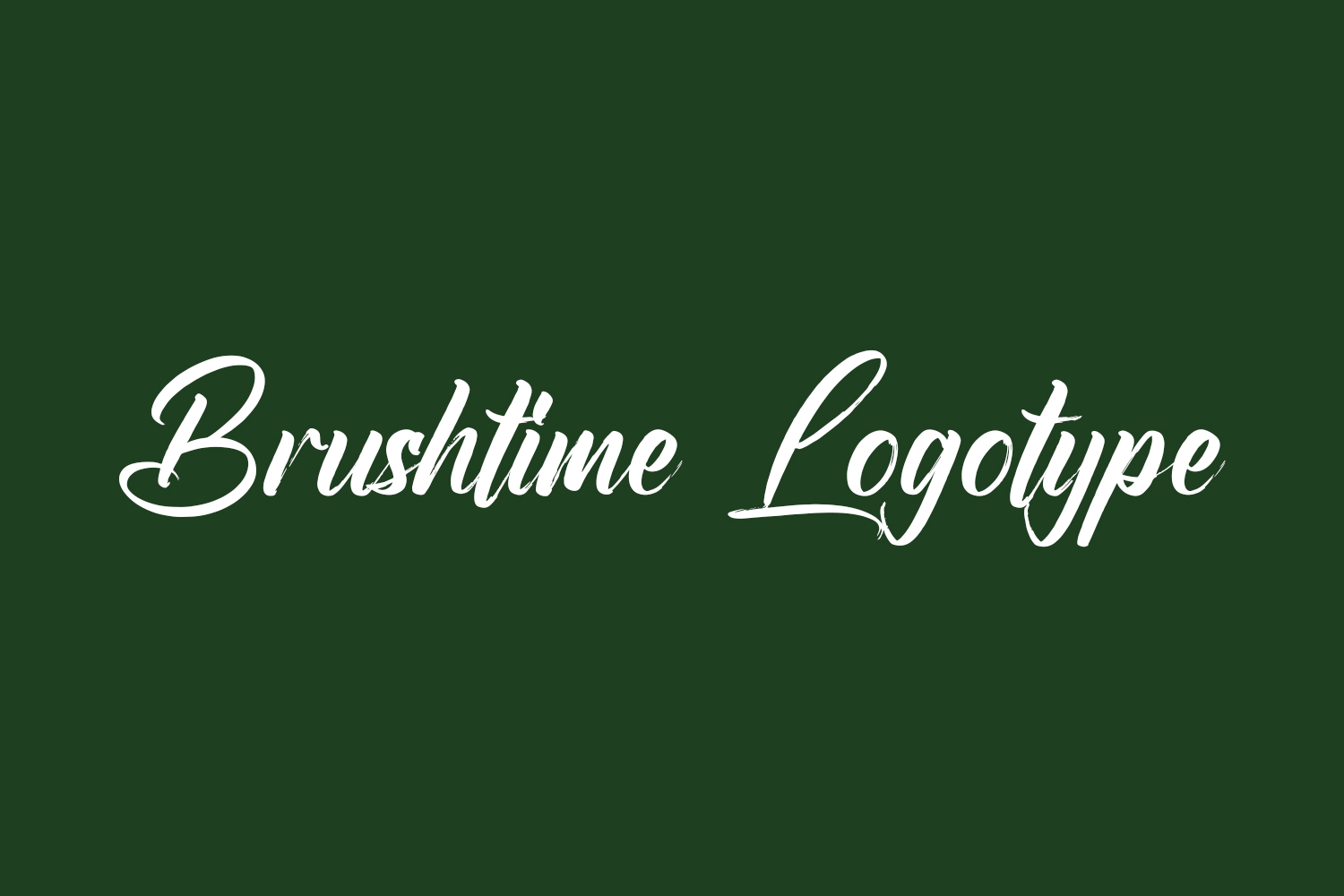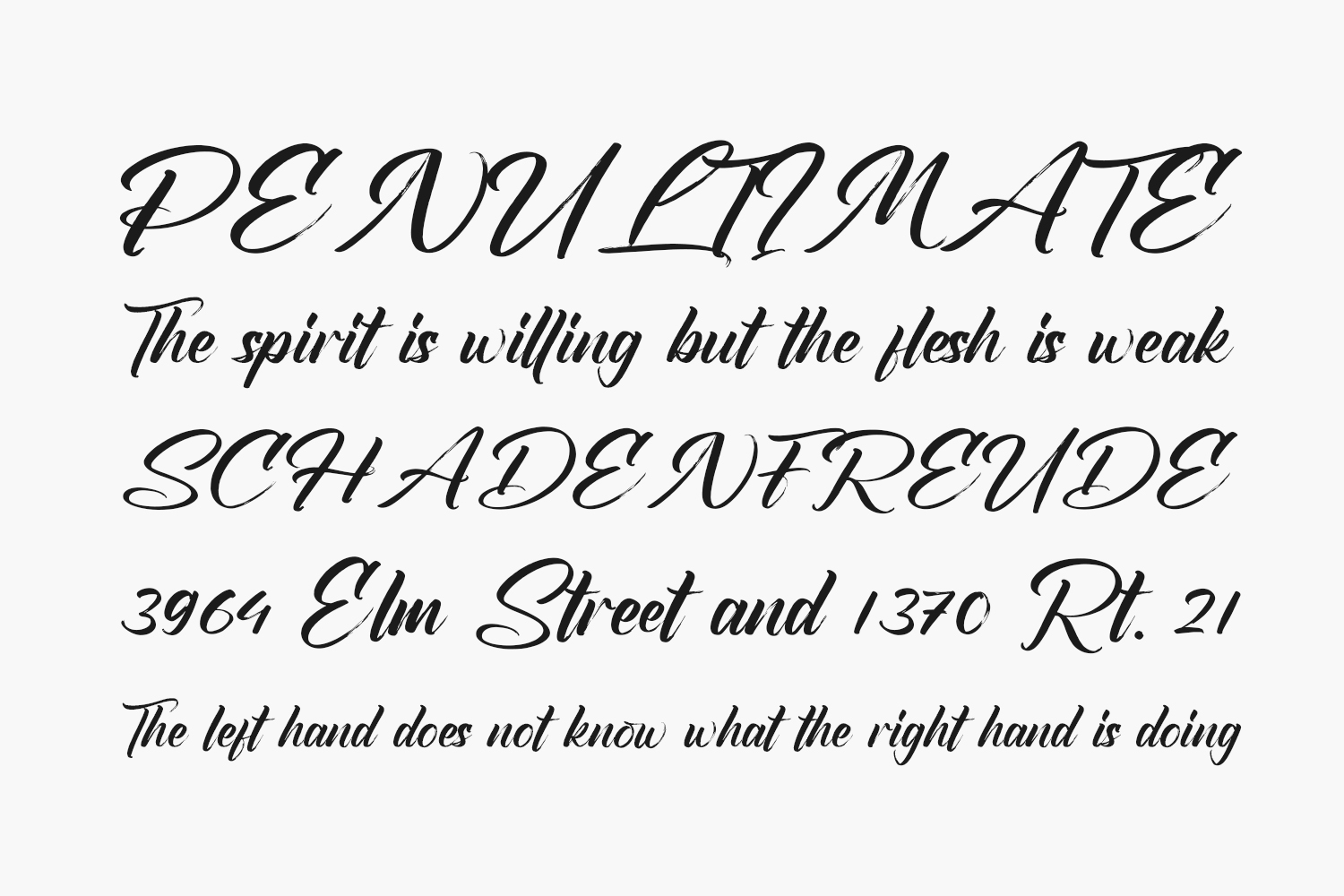
Brushtime Logotype Free Font boasts an elegant script font that exudes a contemporary aura and flawless craftsmanship, drawing inspiration from the timeless art of classic calligraphy. Brushtime Logotype Free Font is free for personal use only. Please purchase the full version for commercial use.
Designed by Letterena Studios